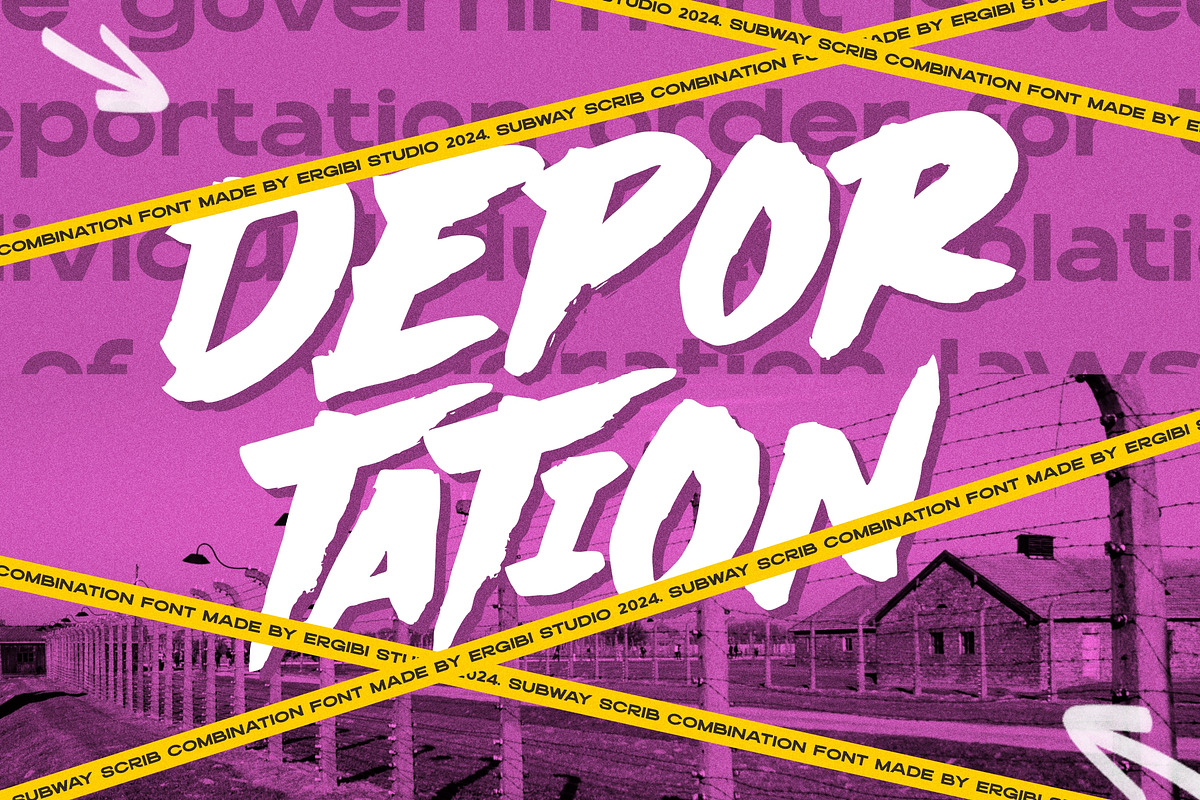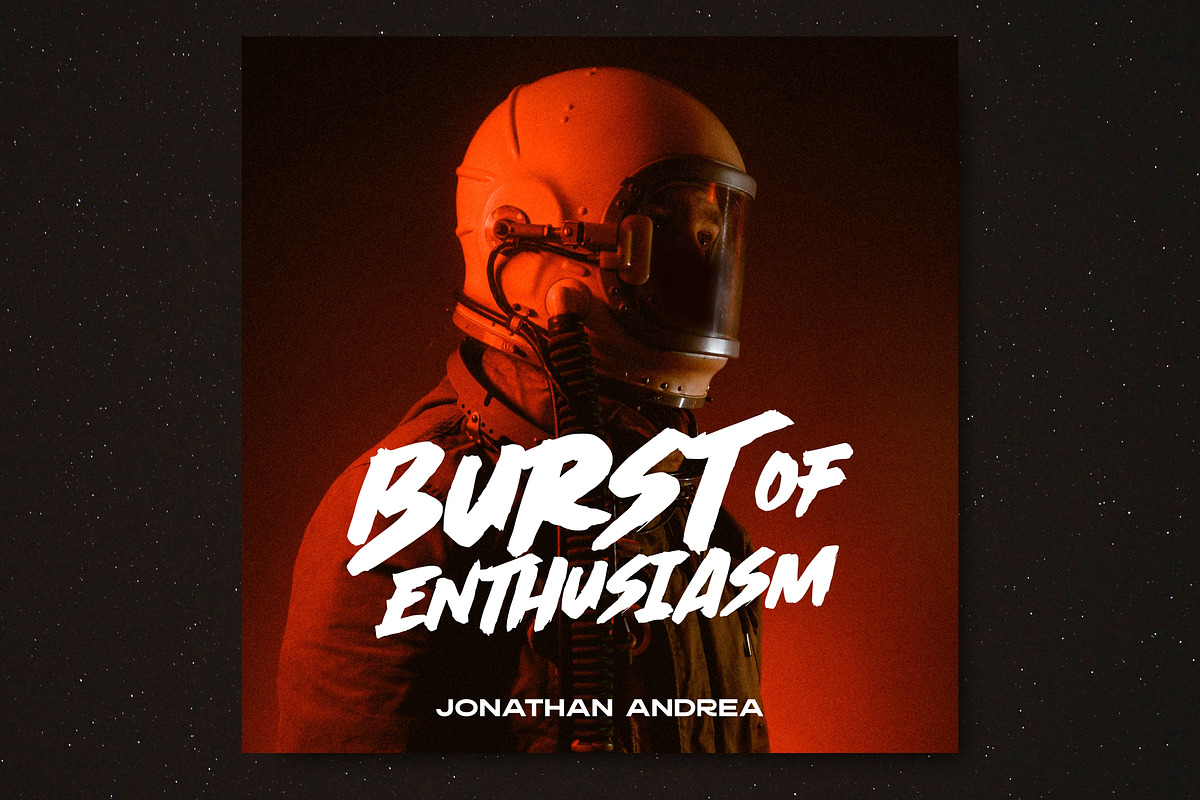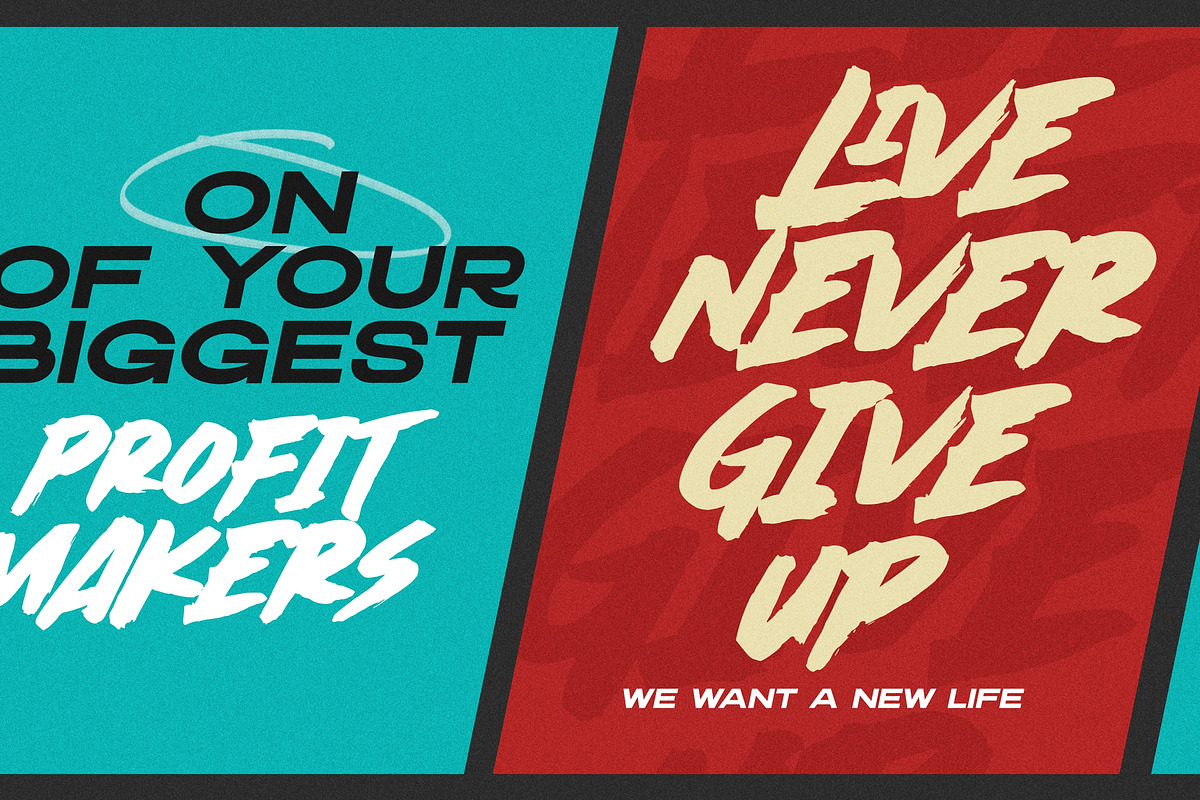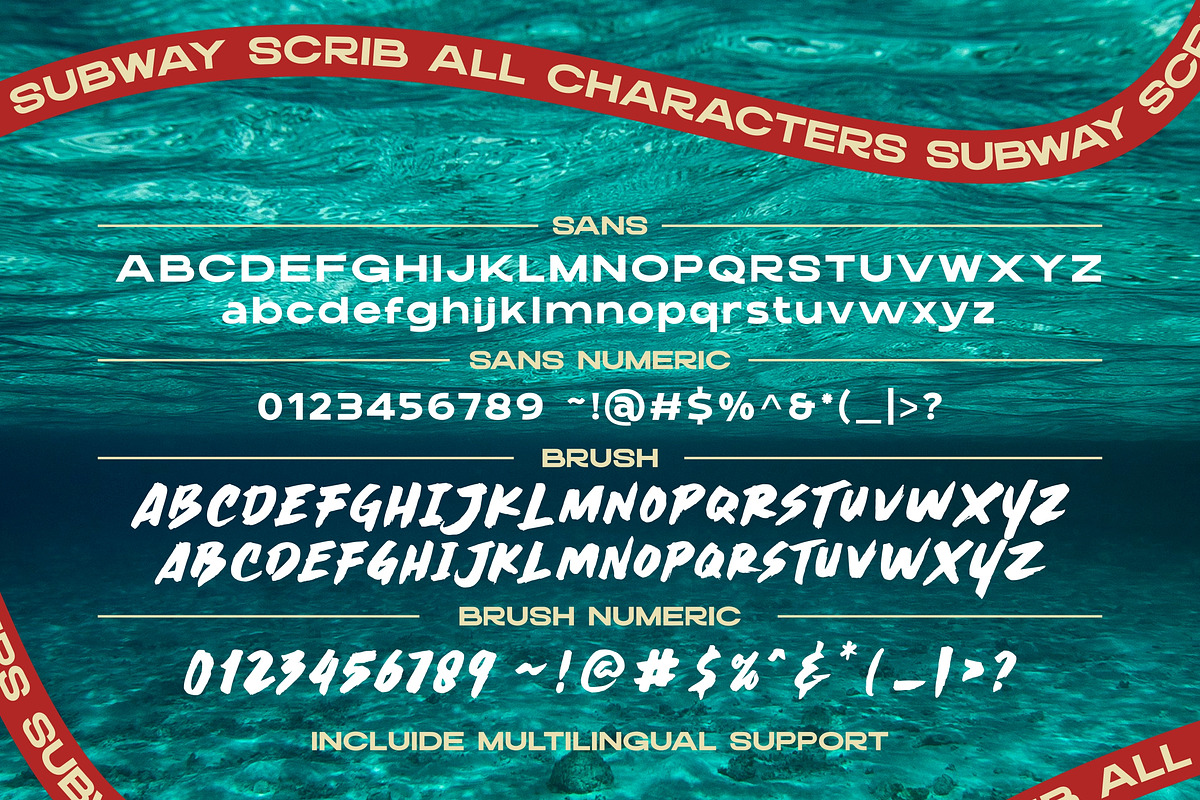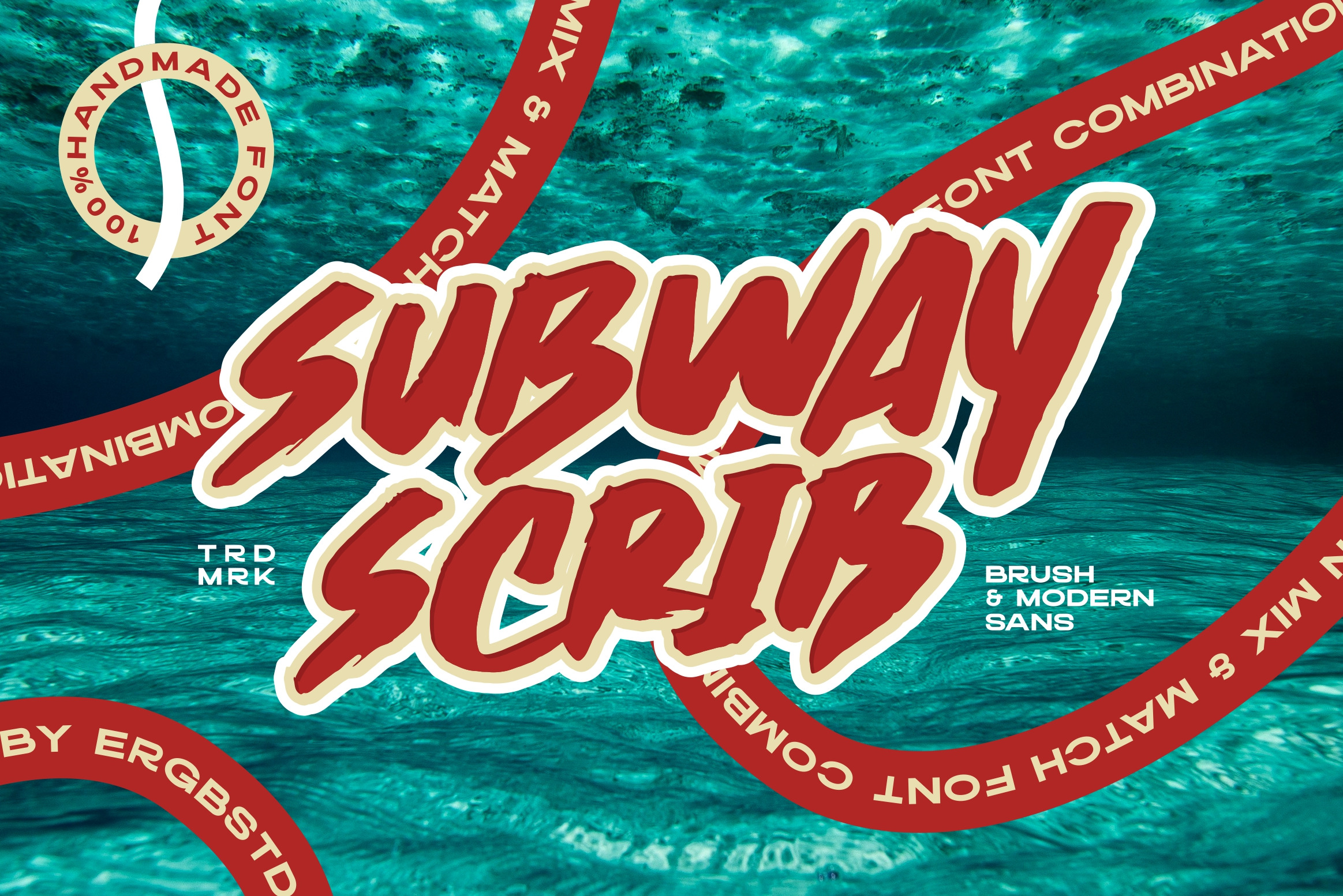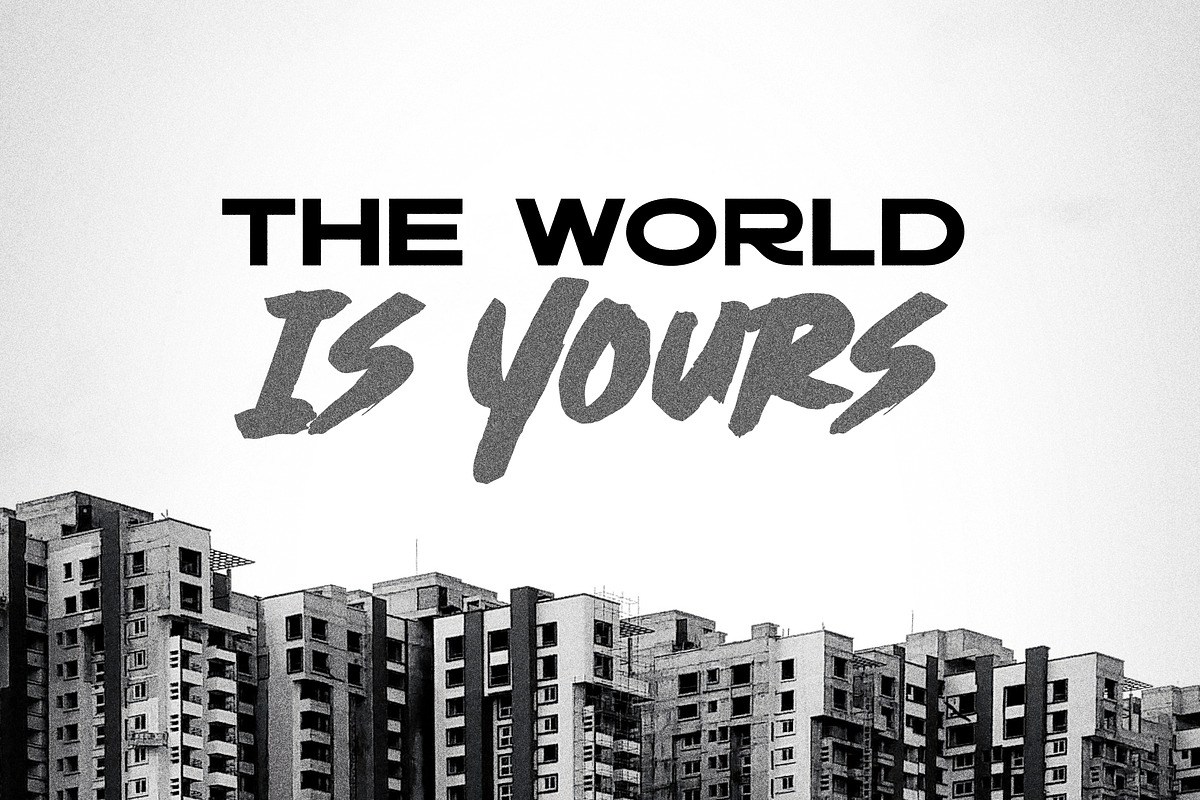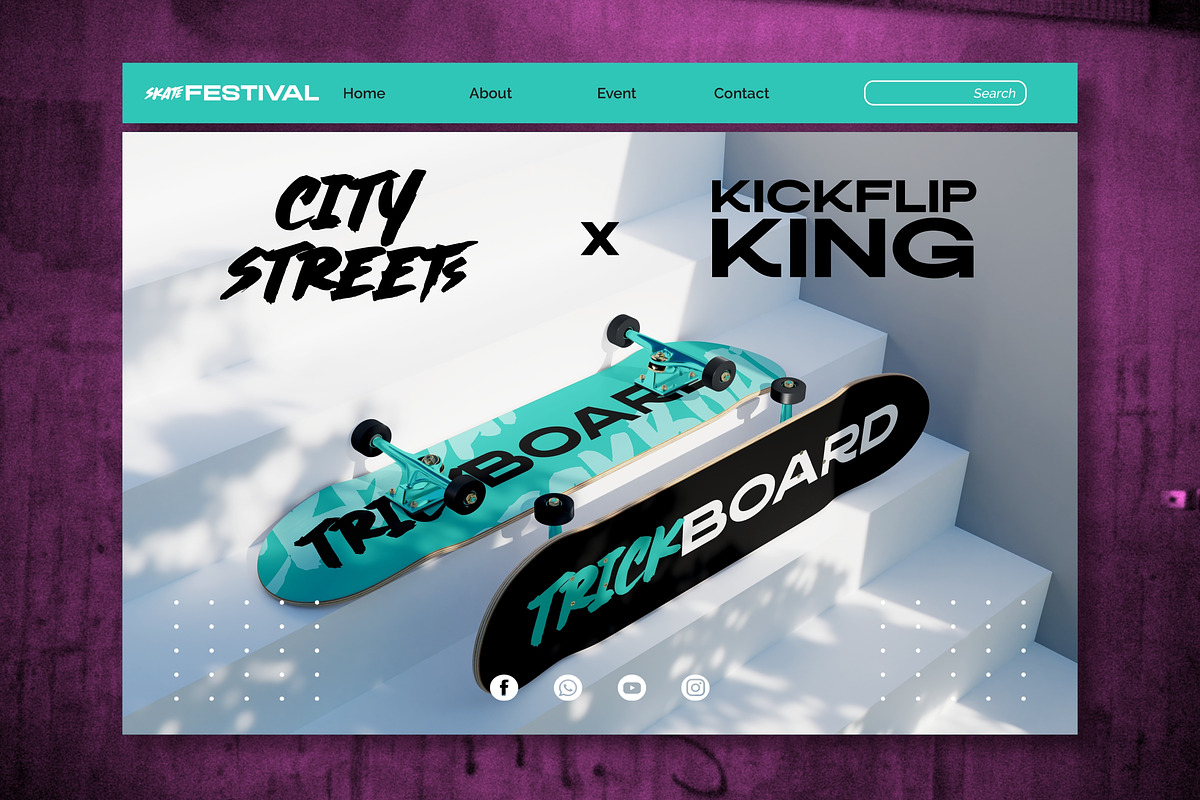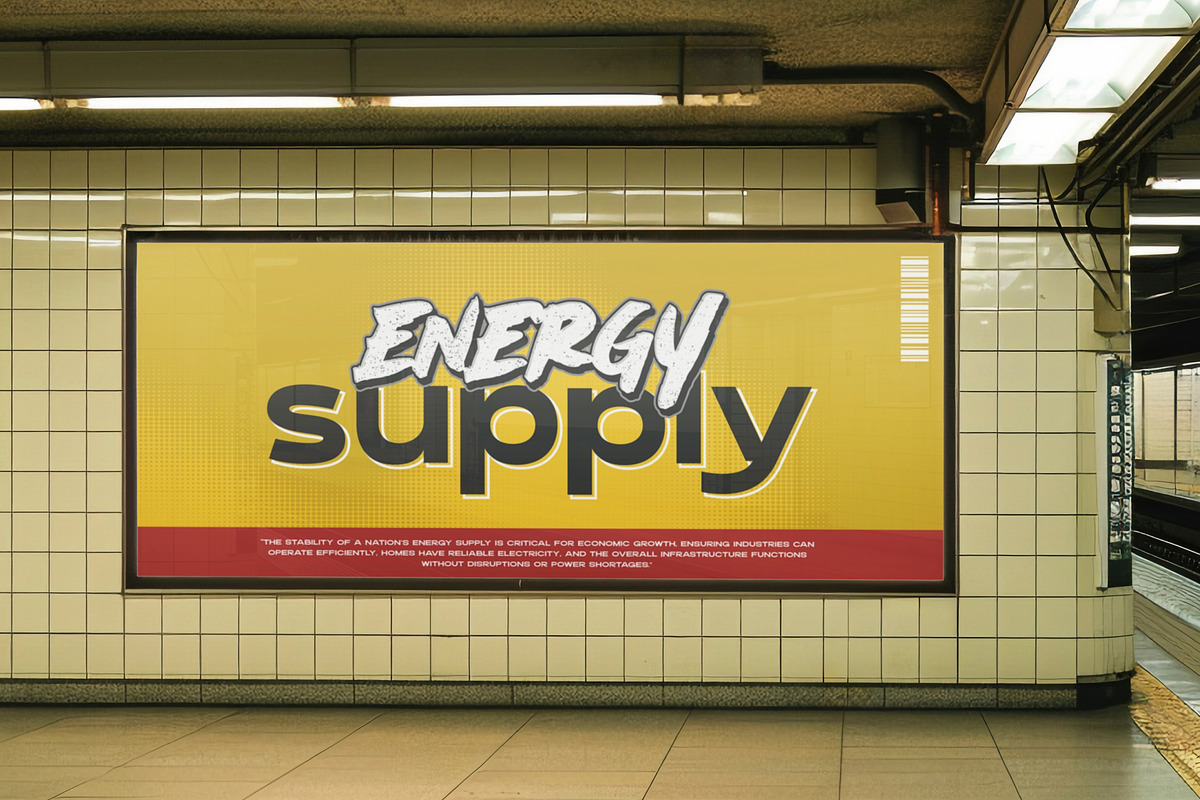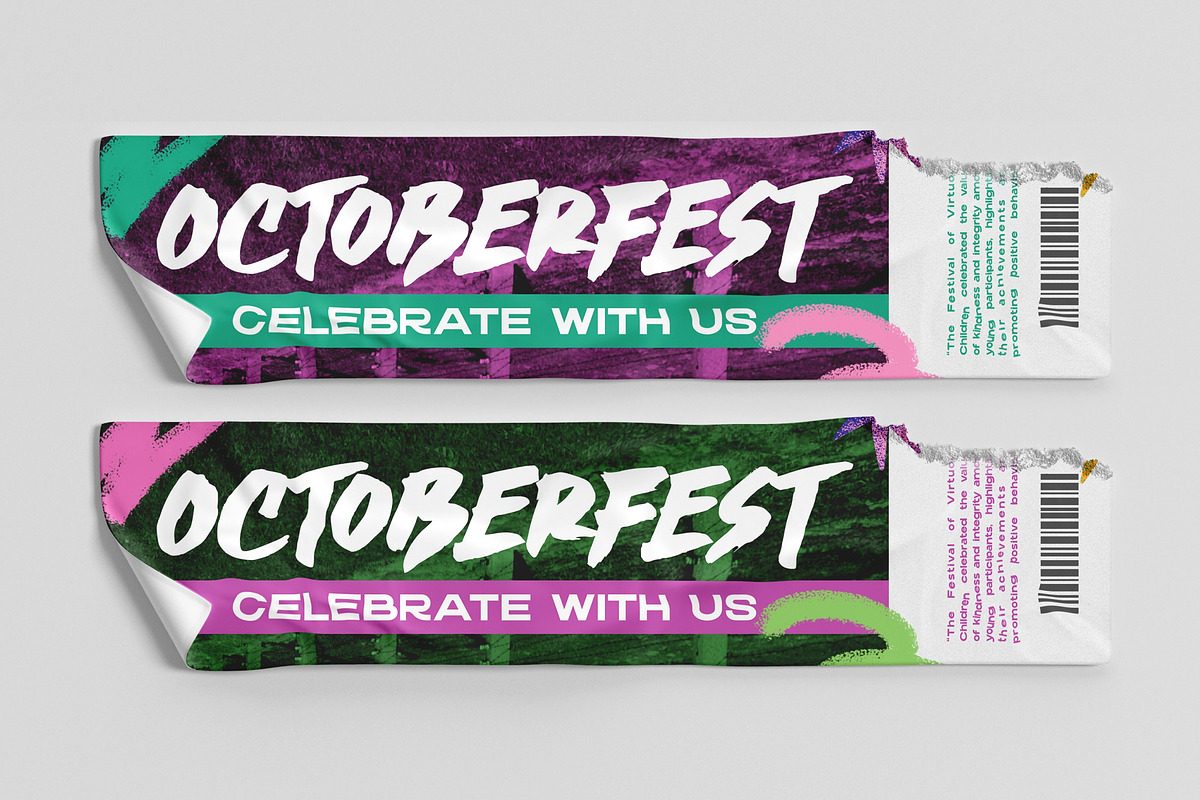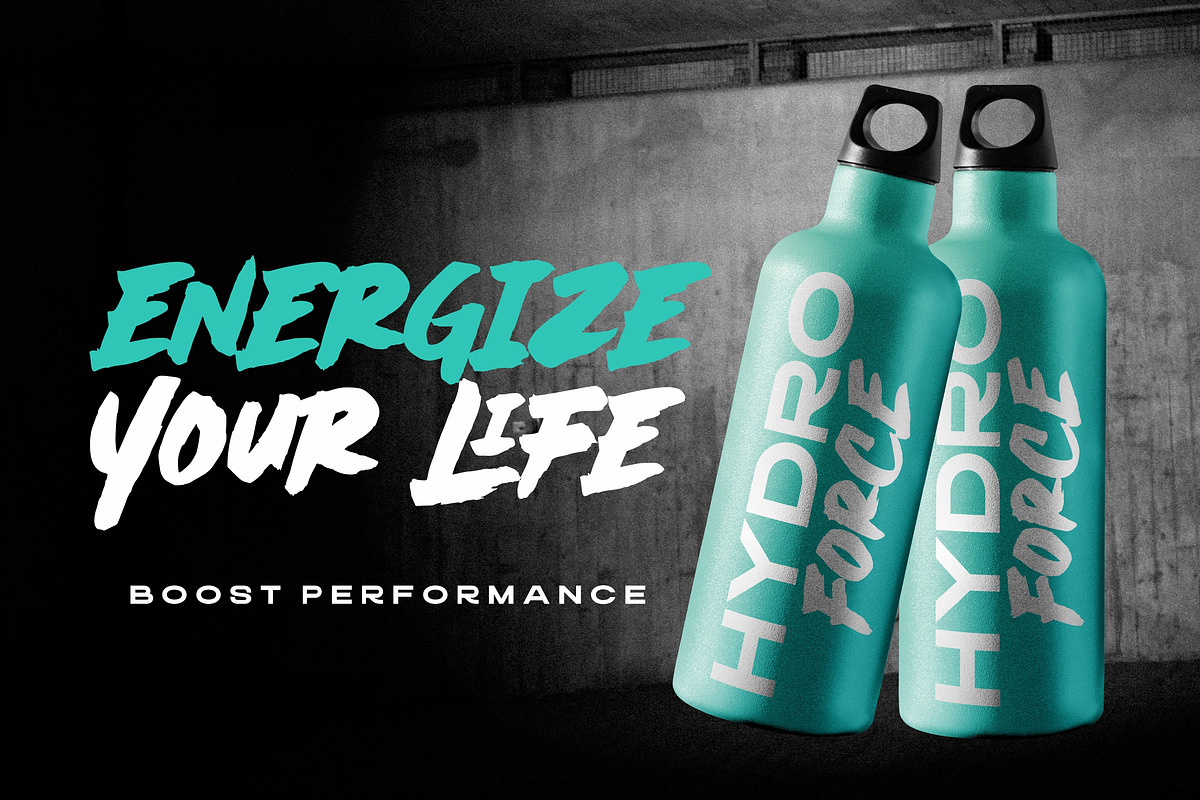
Subway Scrib - Font Duo
Introducing Subway Scrib - Font Duo, expressive clean brush marker strokes with clean, minimalistic modern sans. This powerful combination brings the essence of street art to life, with the bold brush marker font adding a rebellious, handcrafted feel, while the sleek modern sans provides balance and versatility. Perfect for streetart designs, posters, and covers, apparel, logo. Subway Scrib captures the gritty energy of the city while remaining sharp and stylish.